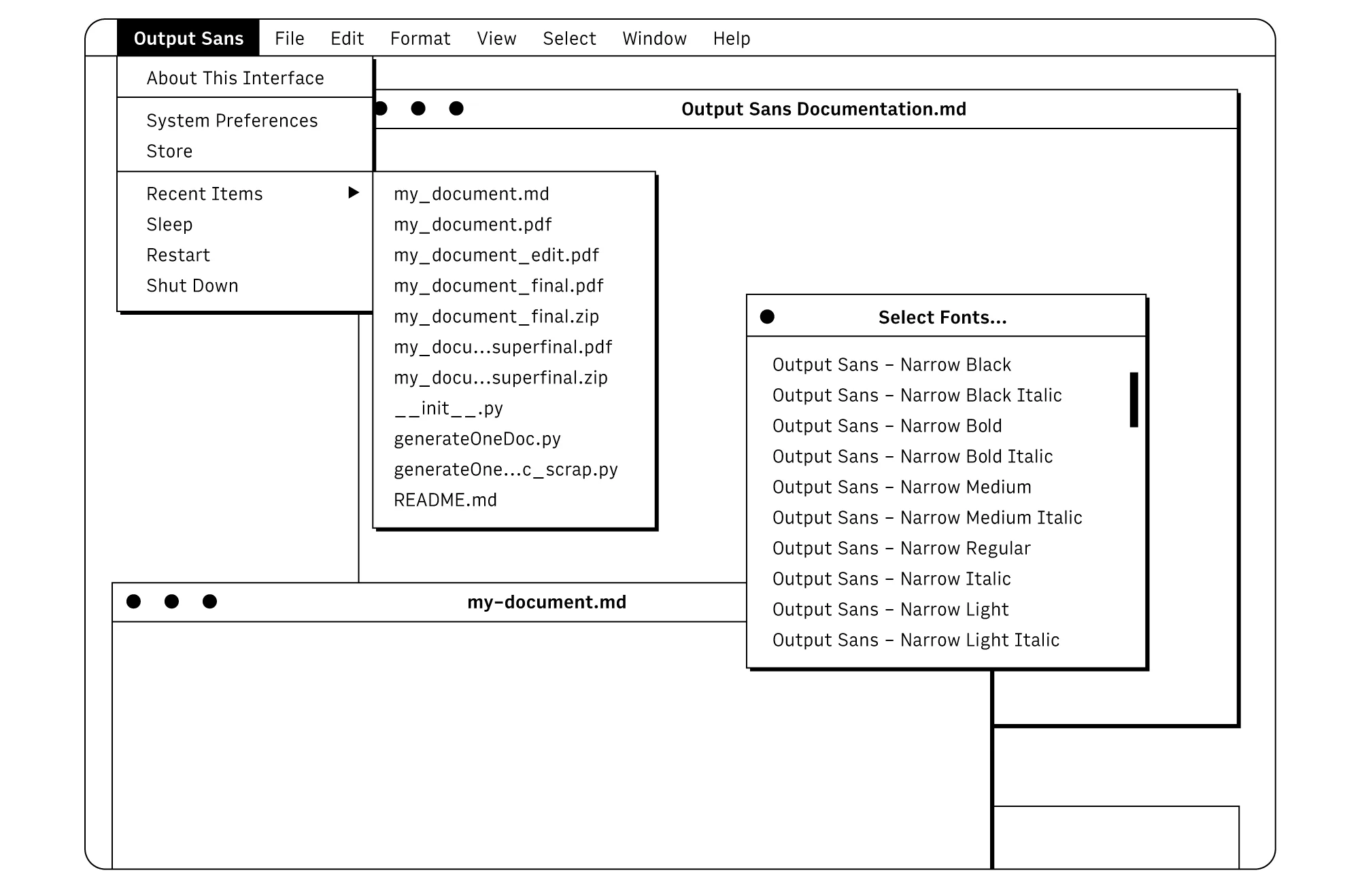
Output
Output in a user interface
When I want to just set some type without any fuss, I start with Output. With a voice that is fresh and a little techy, it is designed to excel in situations where information comes before style, when type must be understated without becoming generic.
Rooted in code
Output is a companion to my typeface Input, a type family designed for computer programming. While Input is tuned to the specific demands of code, Output’s softer curves and moderate proportions confront the demands of readability in text and user interfaces.
Make it your own
Output offers a wide-ranging set of alternate versions that allow you to open and close terminals at will to make Output match the tone of your layout, or adjust its spacing and shapes to stay readable in more rugged environments.
Output Sans is the technical one. Closest in design to Input, its apertures are neither fully closed nor fully open.
Output Sans Open is open and friendly, the most lyrical and humanist of the bunch. It works especially well at the smallest sizes, where those open apertures keep counters from filling in.
Output Sans Closed is a bit more buttoned up. Things tend to end on the vertical or the horizontal, and its round intersections are reminiscent of neo-grotesques.